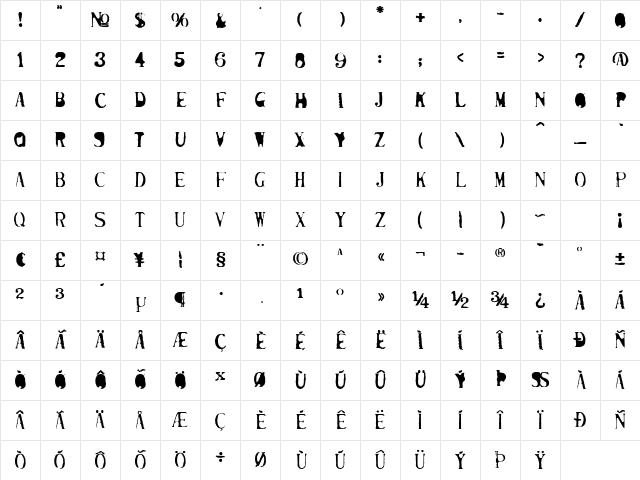
Mutilated Fat Free Font
Mutilated Fat
Style: Fat
Design Context for Mutilated
Mutilated is a composed and adaptable typeface that performs quietly and consistently across a wide range of design contexts.